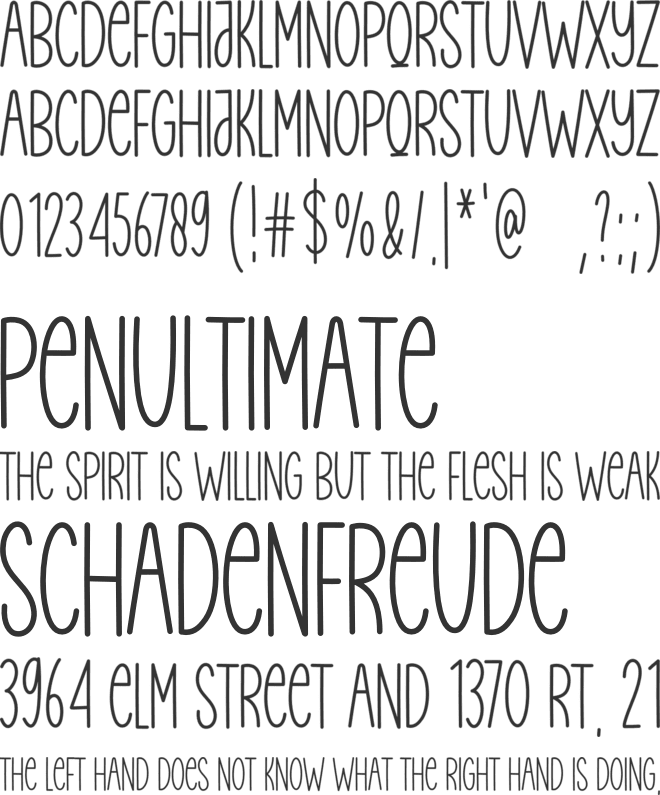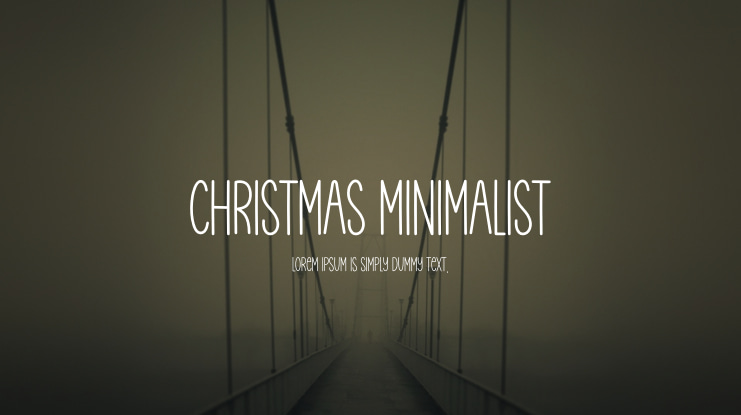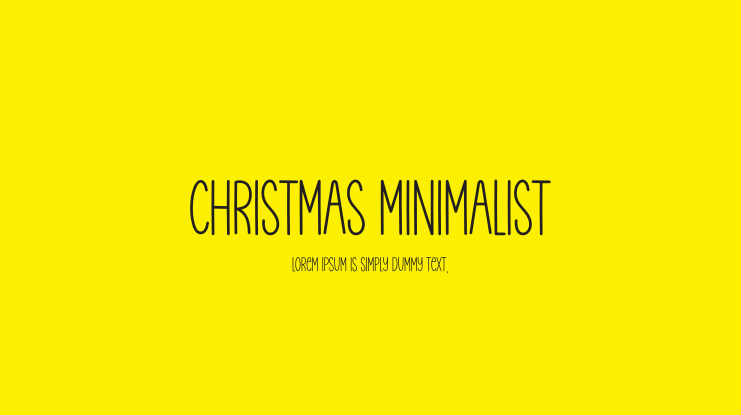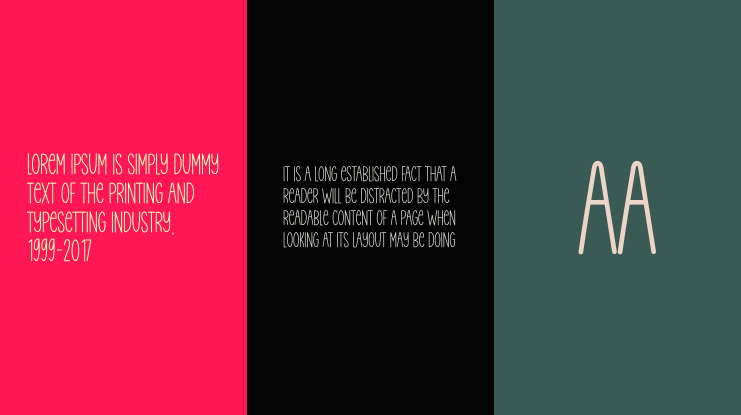
Our latest stylish letters are perfect for various purposes including wall displays, wedding invitations, social media post logos, advertisements, product packaging, labels, photography, watermarks, invitations, stationery, and any project that requires elegant handwriting.